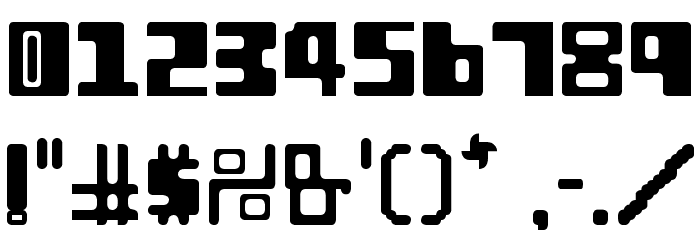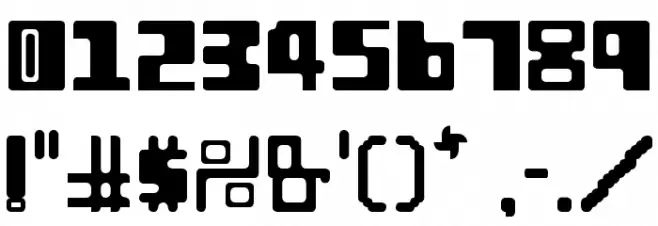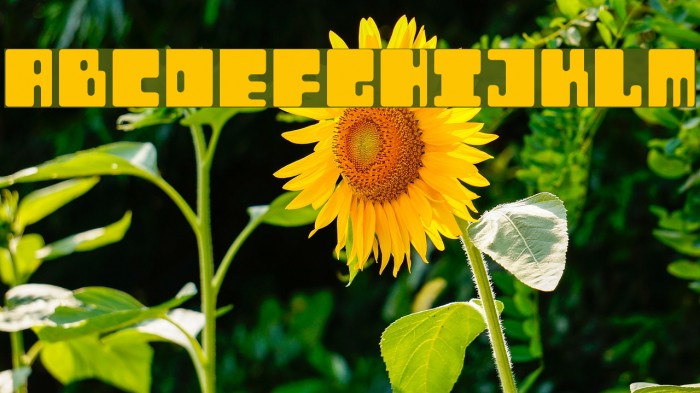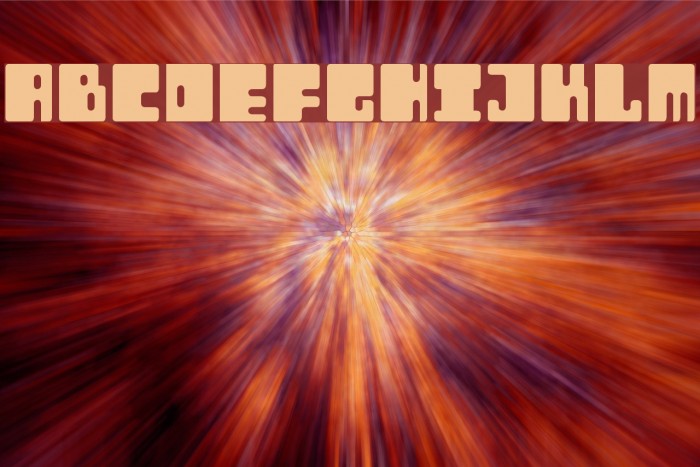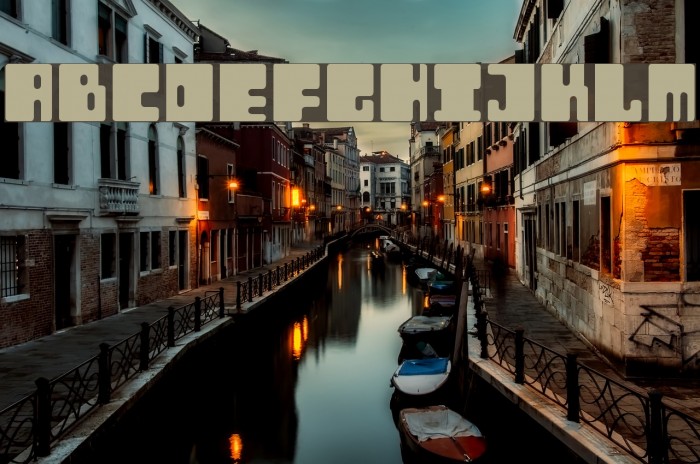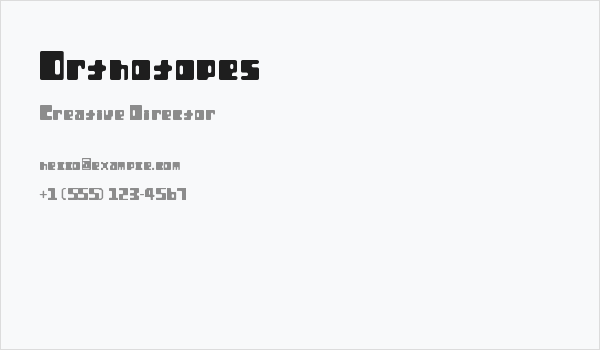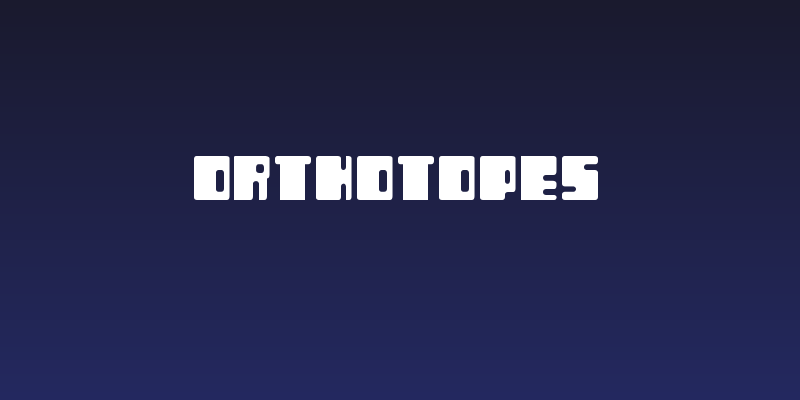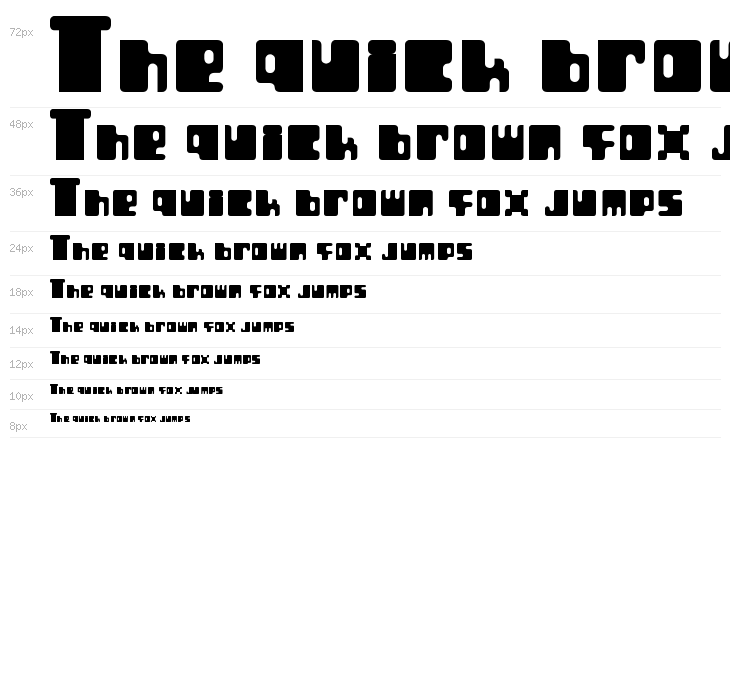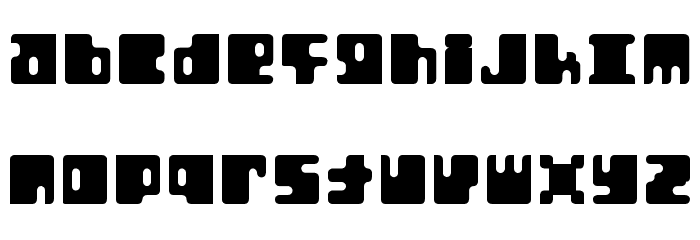
Orthotopes Font
Orthotopes Description
This font features a bold and blocky design with a strong geometric influence. The characters are uniformly thick, with minimal variation in stroke width, giving it a robust and sturdy appearance. The edges are mostly straight, with some subtle curves that add a touch of softness to the overall look. The font maintains a consistent height across all characters, ensuring uniformity and balance. Its unique style is both modern and slightly retro, making it versatile for various design applications. The special characters and numbers follow the same bold and structured design, ensuring cohesion throughout the typeface.